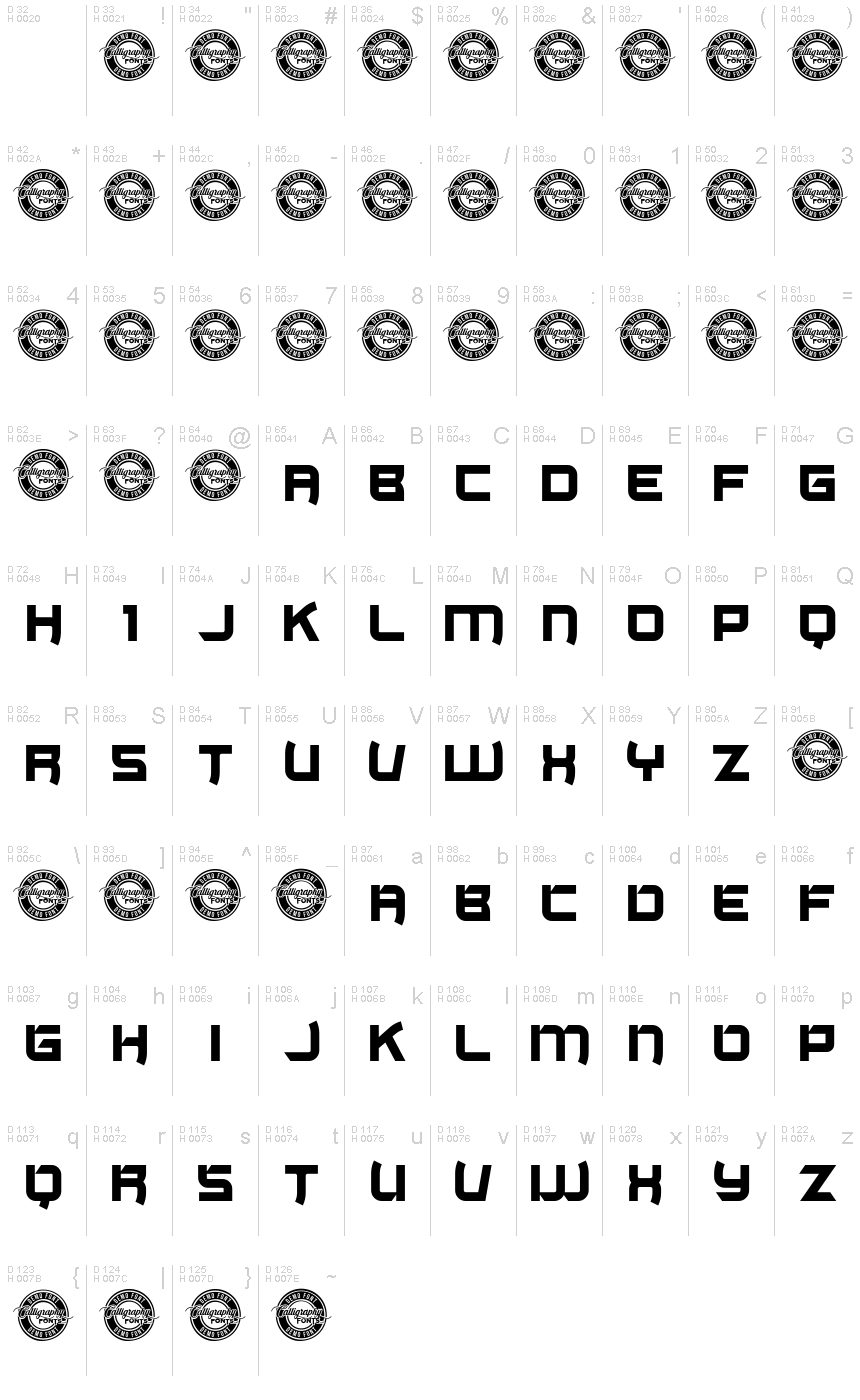
Monoscreen Demo
Monoscreen is a striking display font designed by Calligraphy Fonts, embodying a bold techno aesthetic that commands attention. Its expanded structure offers a visual flair that enhances readability while making each letter feel dynamic and impactful. The unique character shapes and forms are reminiscent of digital interfaces, making it perfect for tech-themed designs or cutting-edge branding.
This font thrives in modern applications—whether it's logo design, promotional materials, or digital advertising—where it can convey innovation and creativity. Monoscreen's distinctive style ensures it stands out in both print and digital mediums, effectively engaging audiences with its futuristic charm. Perfect for projects that aim to push boundaries, this font transforms ordinary text into an extraordinary visual experience.